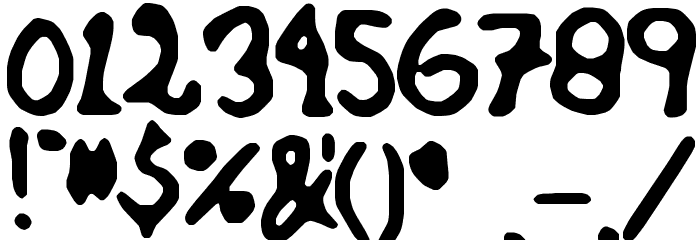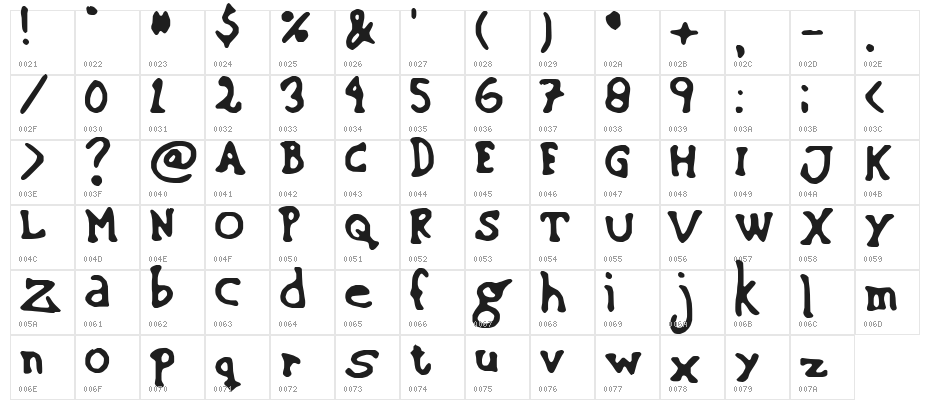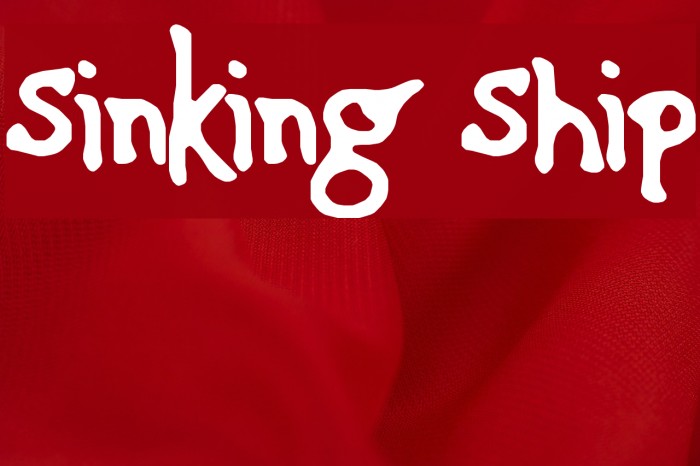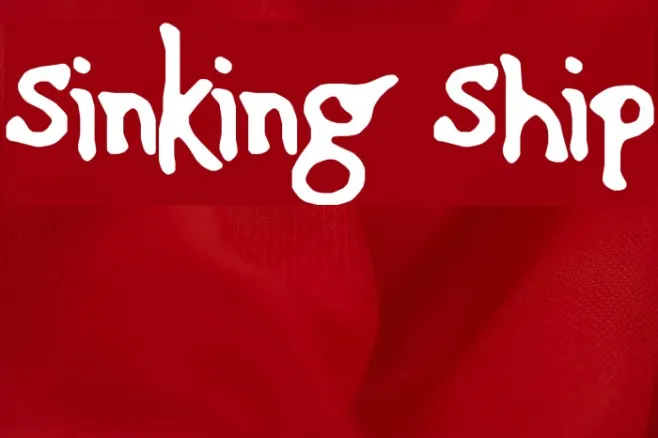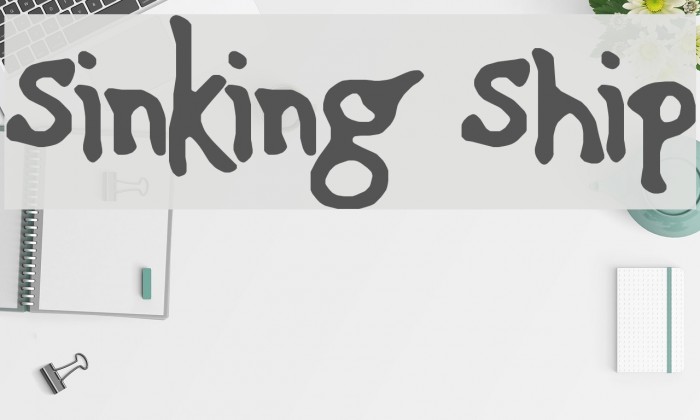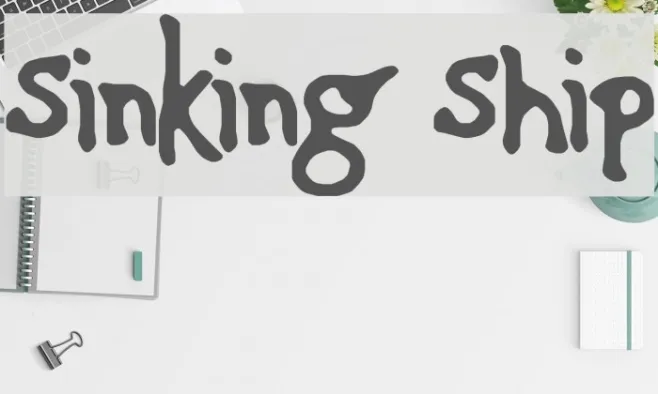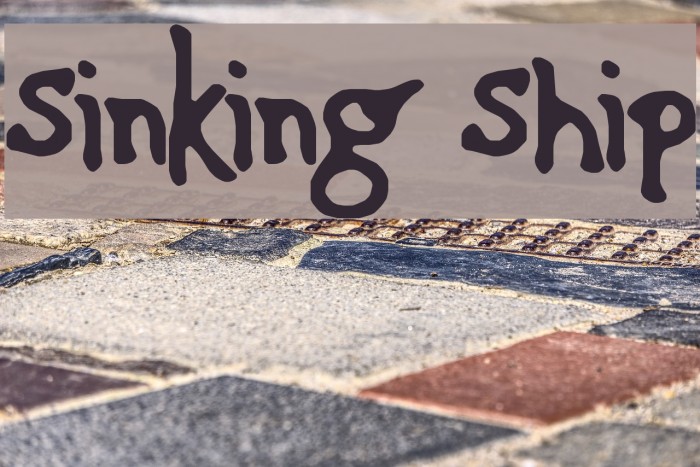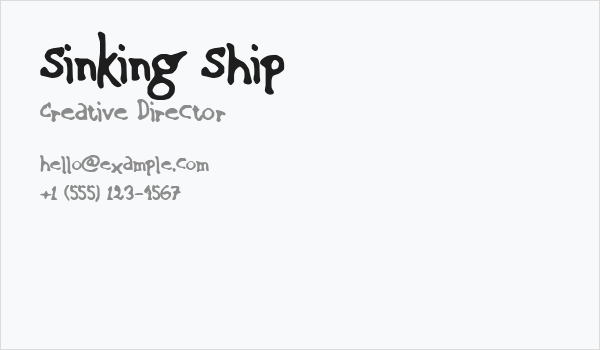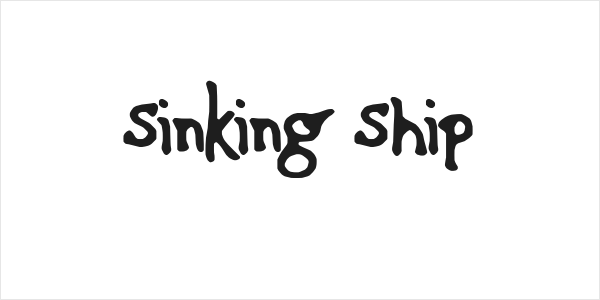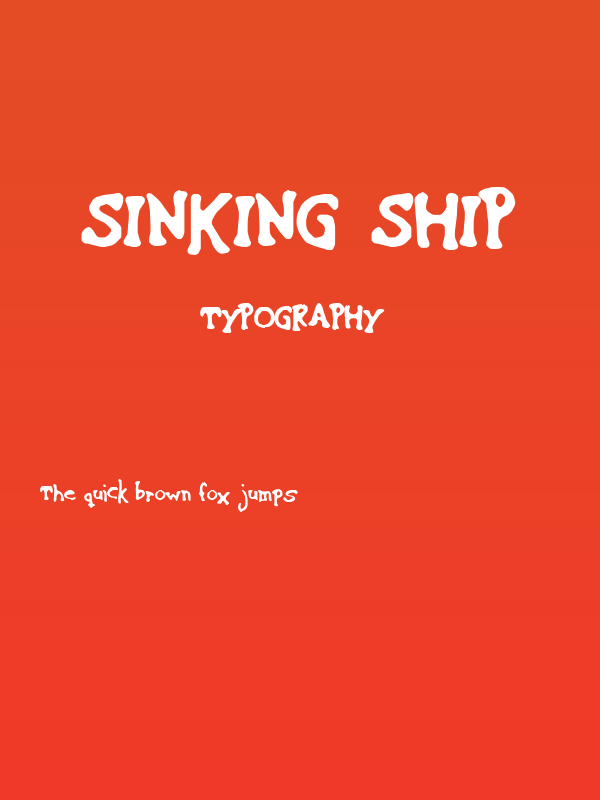
Sinking Ship Font
Sinking Ship Description
This font features a playful and whimsical design, characterized by its bold and uneven strokes that give it a hand-drawn appearance. The letters have a slightly irregular shape, adding to the quirky and informal feel. The uppercase and lowercase letters maintain a consistent style, with rounded edges and a somewhat exaggerated form. Numbers and special characters follow the same playful aesthetic, making the font suitable for creative and casual applications. Its unique style makes it stand out, ideal for projects that require a touch of fun and creativity.
| Overall Style | Whimsical |
| Proposed Projects | Ideal for children's books, comic strips, playful branding, and creative posters. |